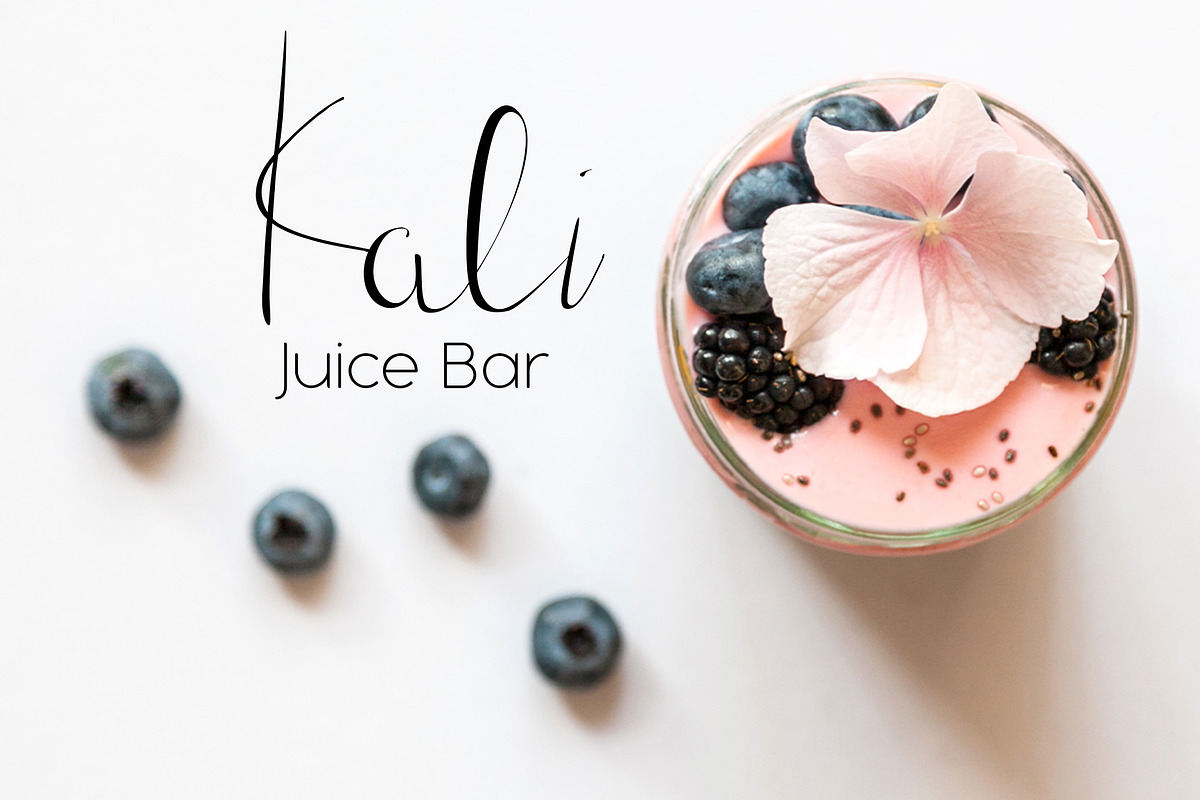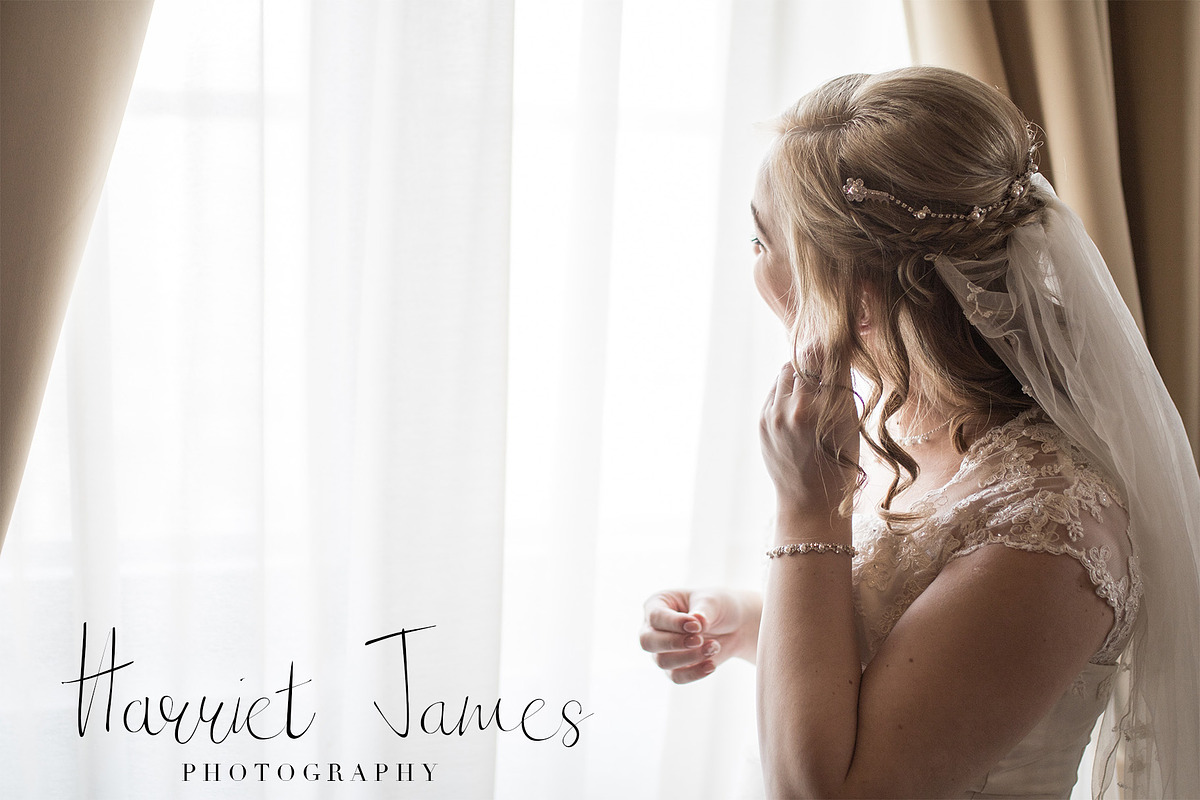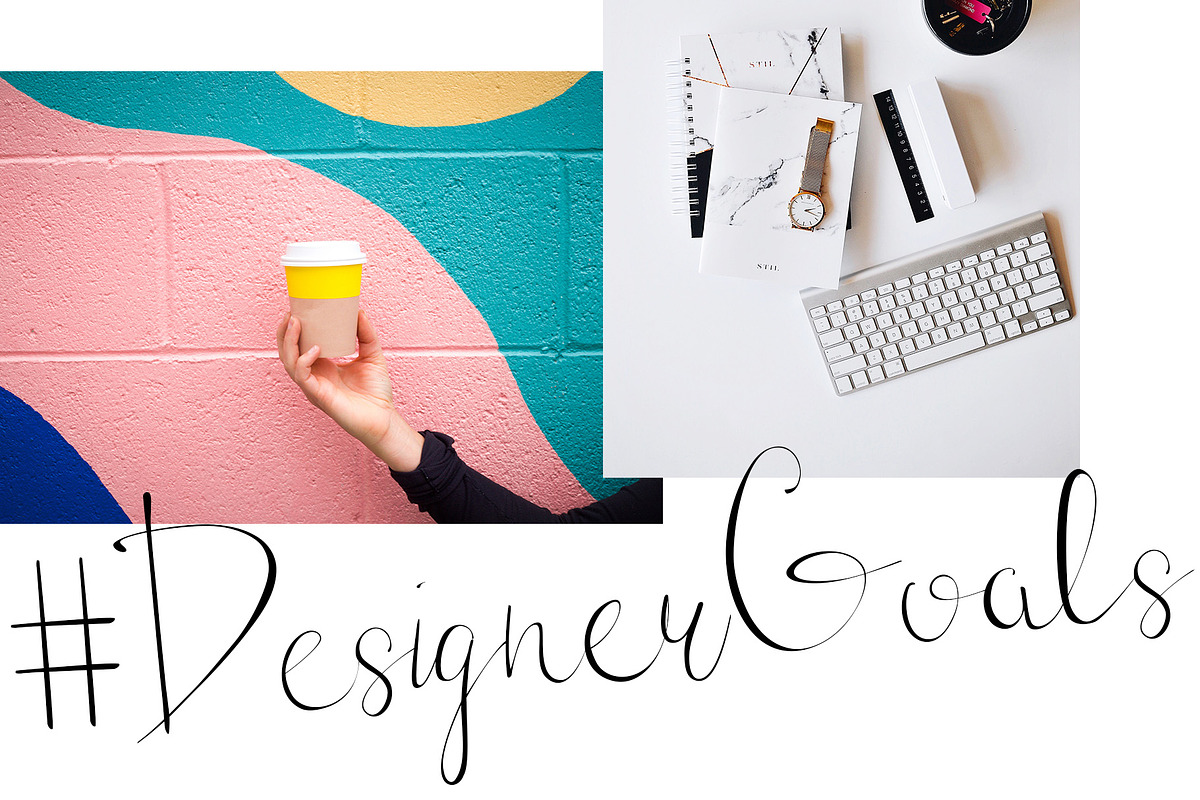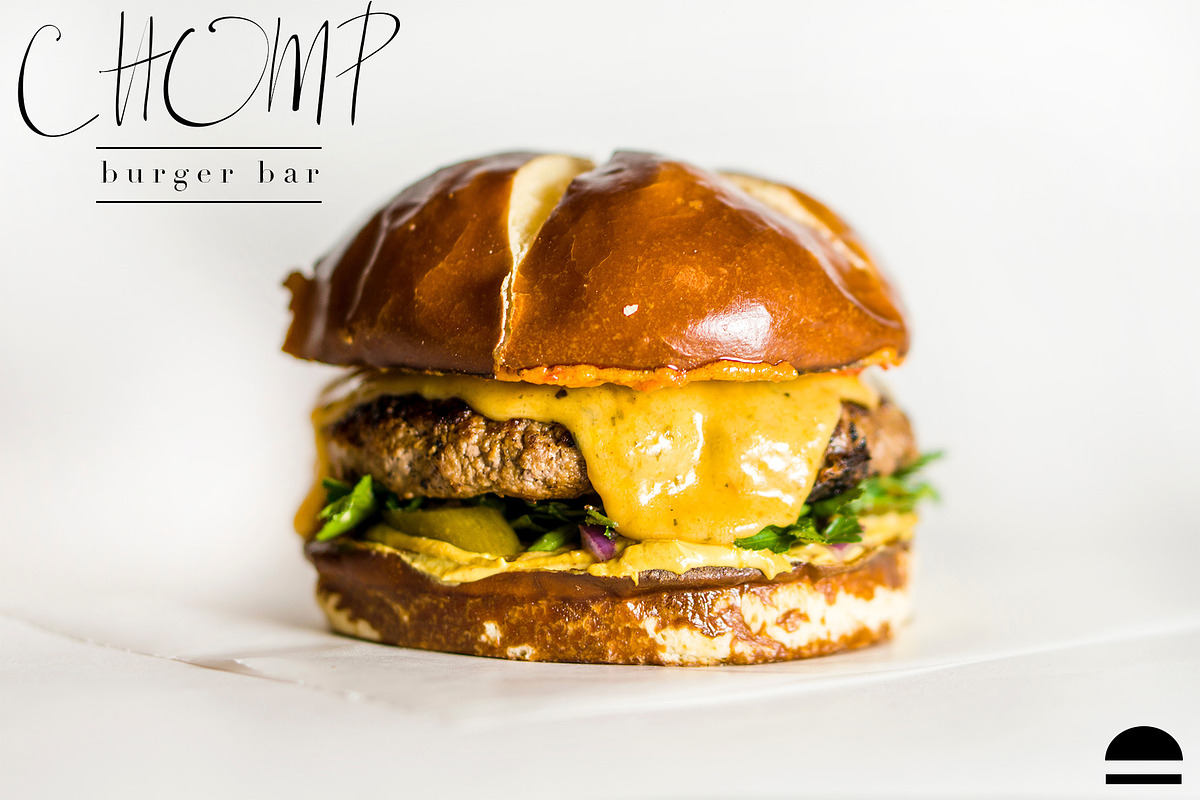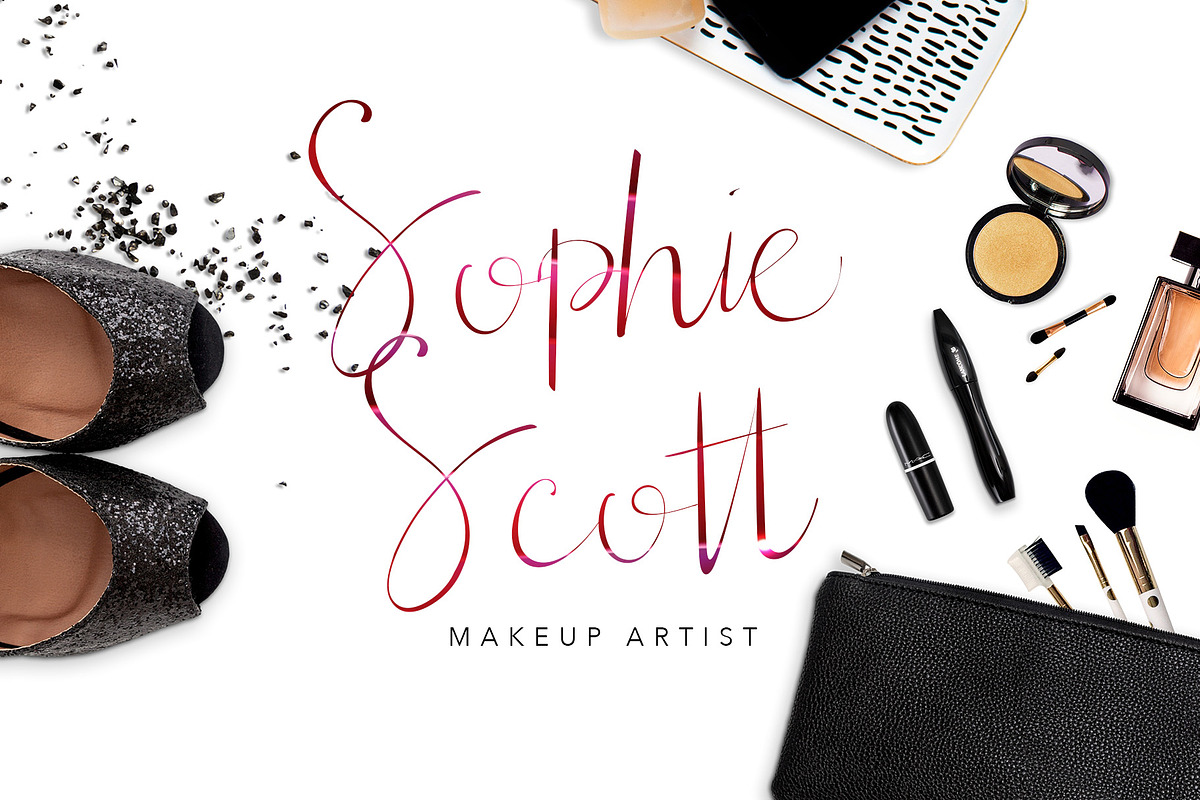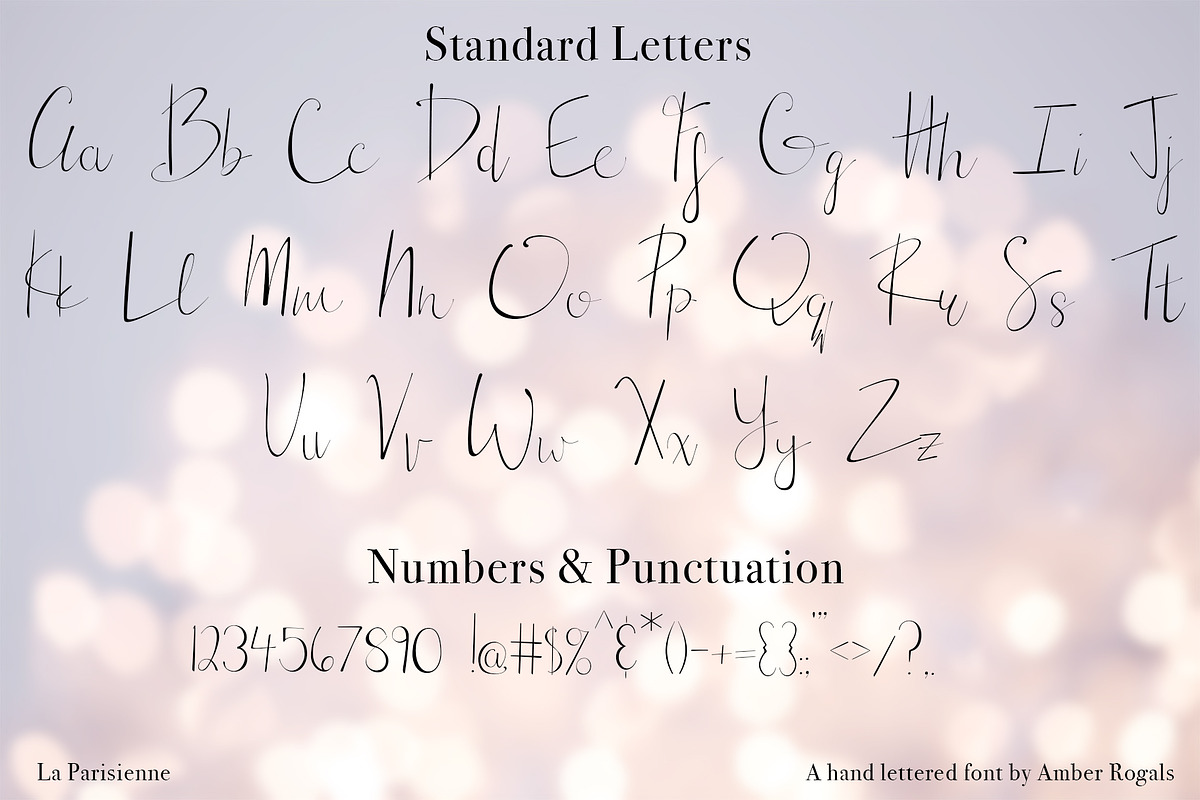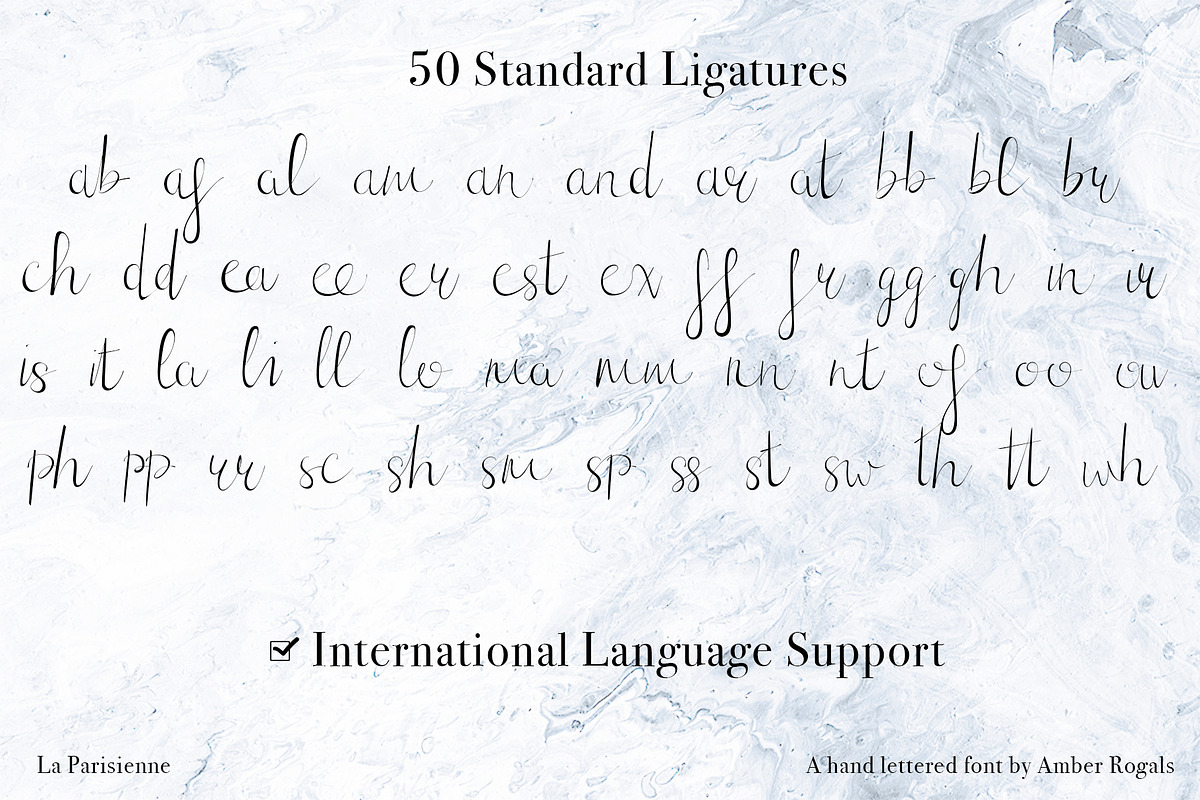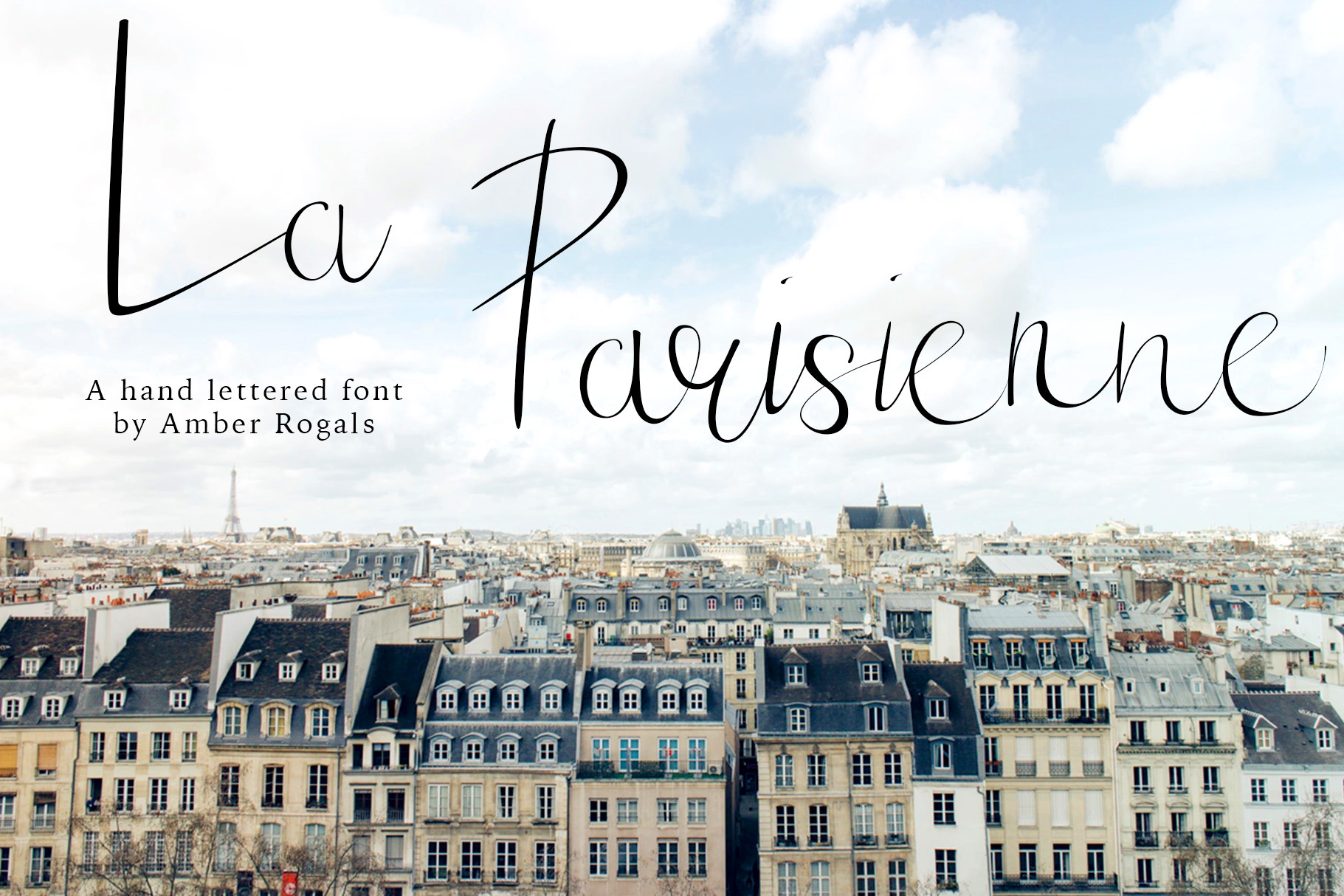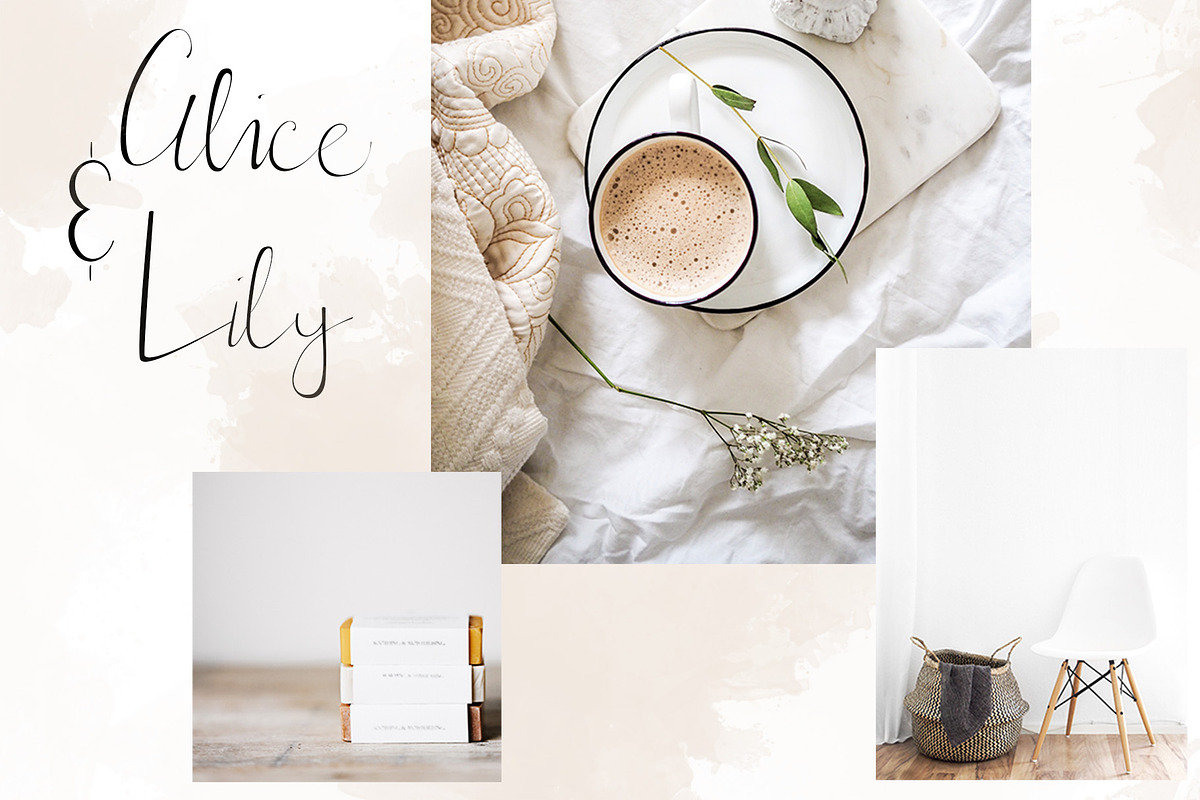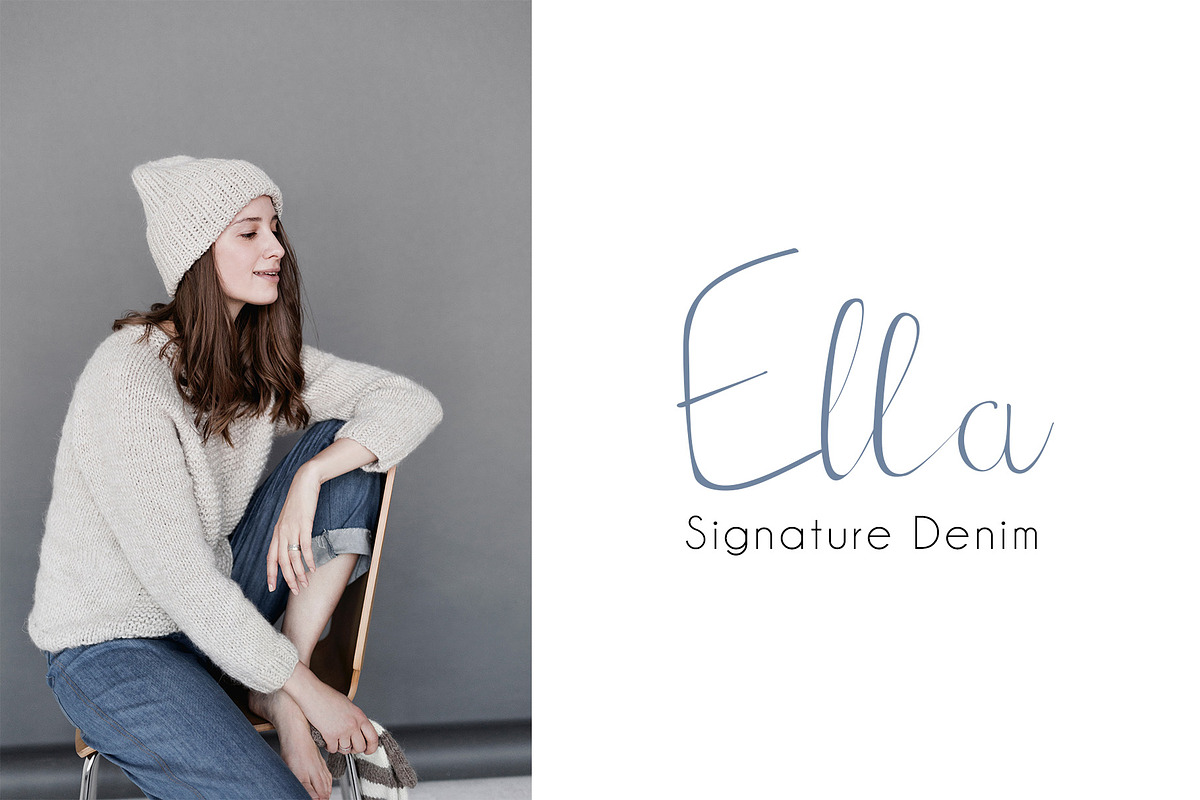
La Parisienne- A Hand Lettered Font
Ooh la la!
La Parisienne is a fun and casual, but luxury hand lettered font. If you love the hand lettered style, then you'll have fun with this! It is perfect for logo and branding projects, social media, banners and photos, invitations and many other projects! It has a smooth texture and natural looking transitions. La Parisienne includes 50 standard ligatures for a truly authentic handwritten look!